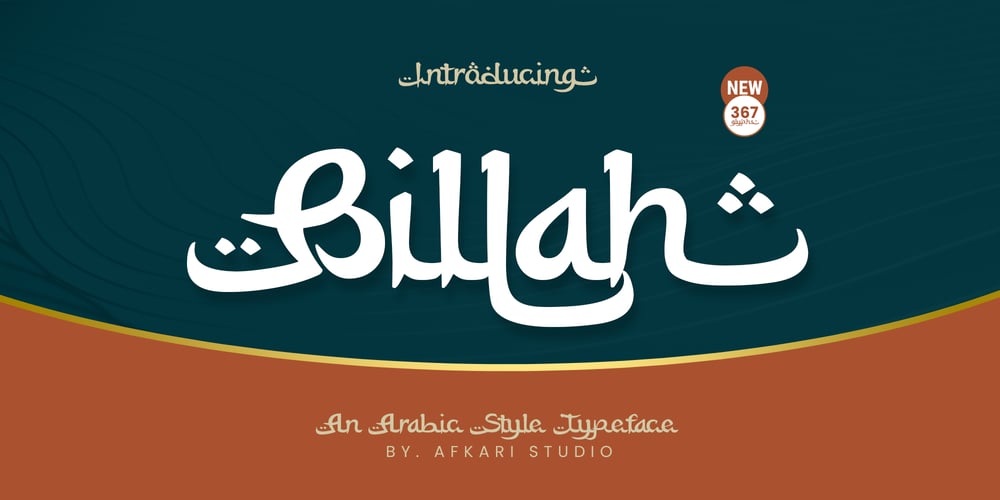
Billah Arabic Style Font Family was designed by Musthafa Kamal Emje and published by Afkari Studio. Billah Arabic Style contains 1 styles and family package options. Introducing Billah, a captivating Arabic-style typeface that pays homage to the rich cultural heritage of Arabic calligraphy. Immerse your designs in the elegance of Billah, meticulously crafted to infuse every text with an authentic Arabic feel. This exquisite font is more than just a typeface; it’s a design journey that effortlessly brings the essence of Arabic style to your creative projects.Billah is thoughtfully designed with Latin characters, ensuring international readability and allowing your message to transcend linguistic barriers. Whether you’re working on branding, product packaging, quotes, flyers, posters, logotypes, apparel, or any project that requires a touch of Arabic sophistication, Billah is the ideal choice.Key Features:- Uppercase, lowercase, numbers, and punctuation- Special alternates and ligatures for added visual richness- Compatible with both PC and Mac platforms- Simple installations for user-friendly experience- Accessibility in popular design software such as Adobe Illustrator, Adobe Photoshop, Adobe InDesign, and Microsoft Word- Fully functional without the need for additional design software- Multilingual support, accommodating characters like ä, ö, ü, Ä, Ö, Ü, ß, ¿, and ¡Enjoy the artistry of design with Billah!